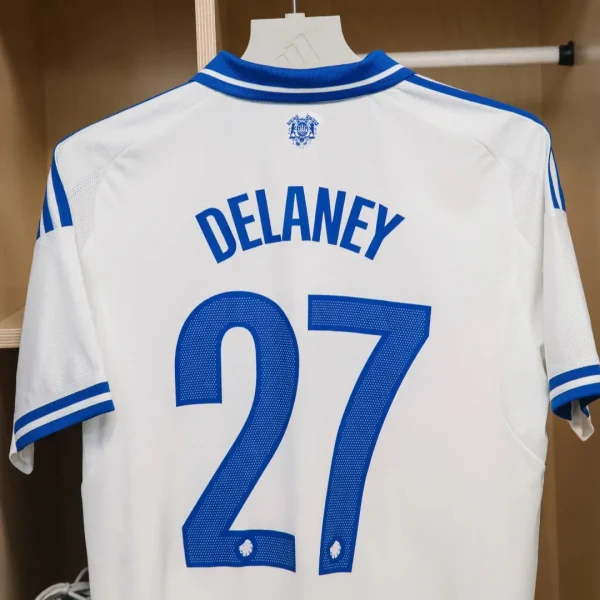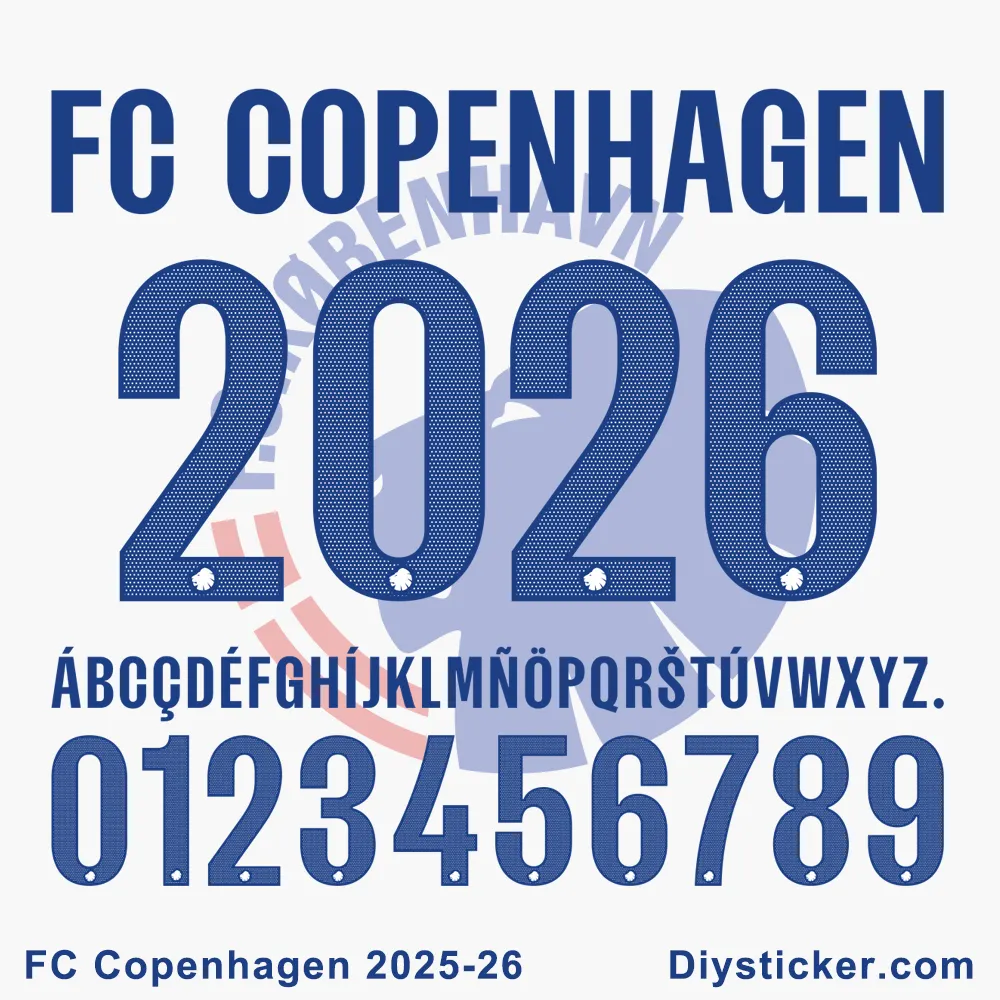
FC Copenhagen 2025-26 Font Download
Design with the pride of Danish football using the official FC Copenhagen 2025-26 Font. This professionally crafted typeface replicates the club’s distinctive lettering, ideal for creating authentic jerseys, fan merchandise, and digital content for FCK supporters.